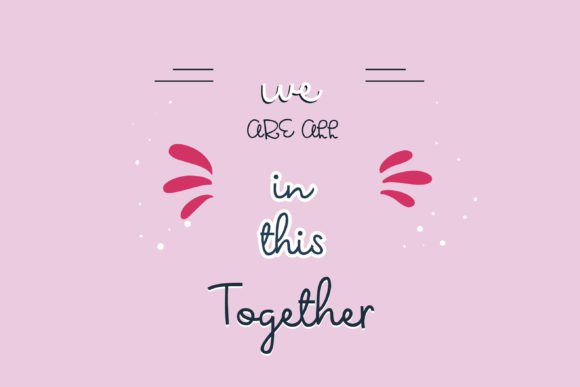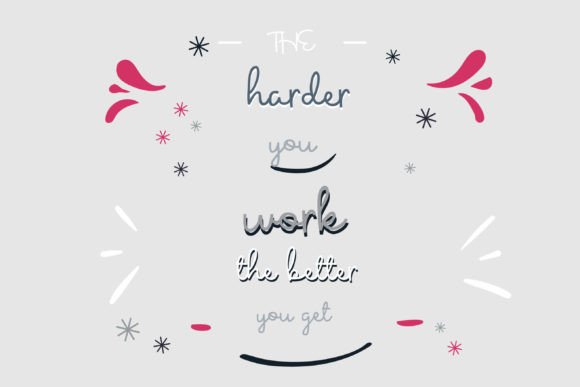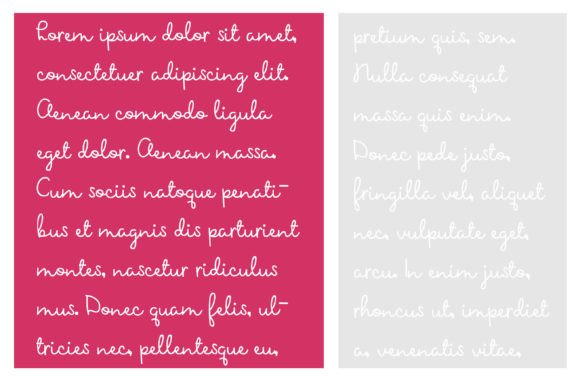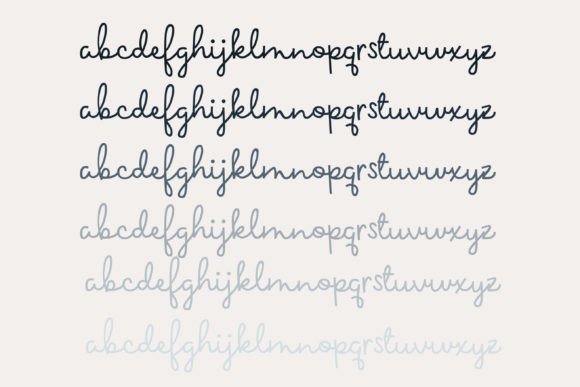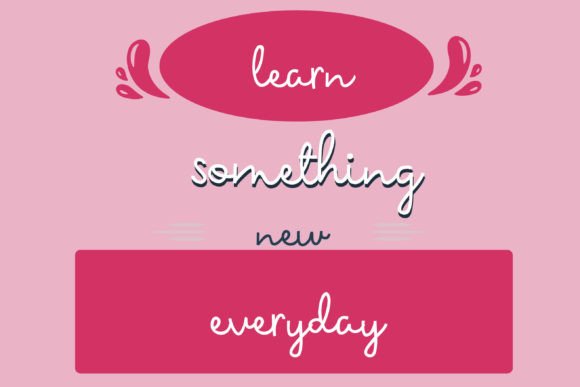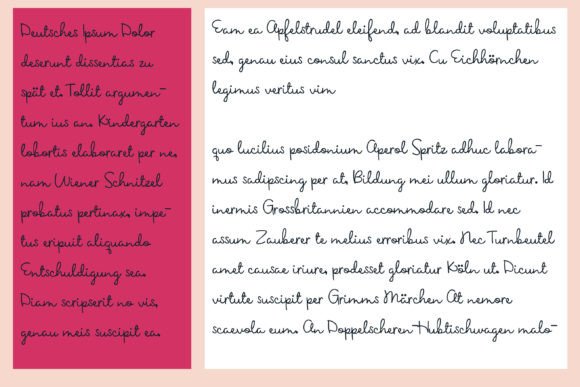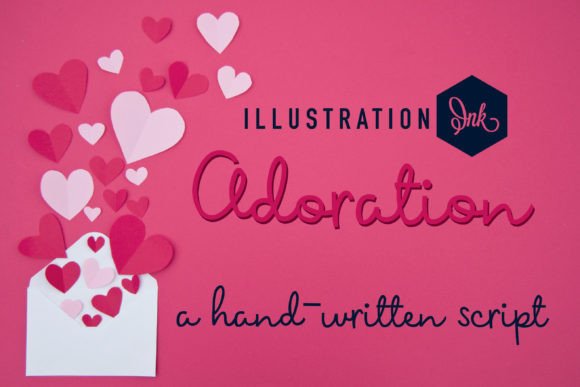
Adoration Font: Elevate Your Designs with this Beautiful Cursive Font
Are you looking for a font that can add a touch of elegance and sophistication to your designs? Look no further than Adoration Font, a pretty, cursive font with a casual look and feel. This versatile font is perfect for designers and crafters who want to elevate their creations and make them stand out from the crowd.
What is Adoration Font?
Adoration Font is a beautiful, hand-crafted cursive font that is designed to give your designs a personal and approachable feel. Its casual look and feel make it perfect for a wide range of projects, from wedding invitations and party decorations to blog posts and social media graphics.
Key Features of Adoration Font
- Cursive and Elegant: Adoration Font features a beautiful, cursive script that adds a touch of elegance to any design.
- Casual Look and Feel: Despite its elegance, Adoration Font has a casual look and feel that makes it perfect for a wide range of projects.
- Versatile: Adoration Font can be used for a wide range of projects, from formal events to casual blog posts.
- Easy to Read: Adoration Font is designed to be easy to read, making it perfect for body text and headlines.
Why Use Adoration Font?
Adoration Font is an incredible asset to any font library, and here are just a few reasons why:
- Adds a Personal Touch: Adoration Font’s casual look and feel make it perfect for adding a personal touch to your designs.
- Elevates Any Creation: Whether you’re designing a wedding invitation or a blog post, Adoration Font has the potential to elevate any creation.
- Perfect for a Wide Range of Projects: From formal events to casual blog posts, Adoration Font is versatile enough to be used for a wide range of projects.
Tips and Tricks for Using Adoration Font
Here are a few tips and tricks for getting the most out of Adoration Font:
- Use it for Headlines and Body Text: Adoration Font is perfect for both headlines and body text, making it a versatile addition to any design.
- Experiment with Different Colors: Adoration Font looks great in a wide range of colors, so don’t be afraid to experiment and find the perfect color for your design.
- Pair it with Other Fonts: Adoration Font pairs well with a wide range of other fonts, so feel free to get creative and try out different combinations.
Adoration Font is a beautiful, cursive font with a casual look and feel that is perfect for designers and crafters who want to elevate their creations. Its versatility, elegance, and ease of use make it an incredible asset to any font library. Whether you’re designing a wedding invitation or a blog post, Adoration Font has the potential to make your designs stand out from the crowd.